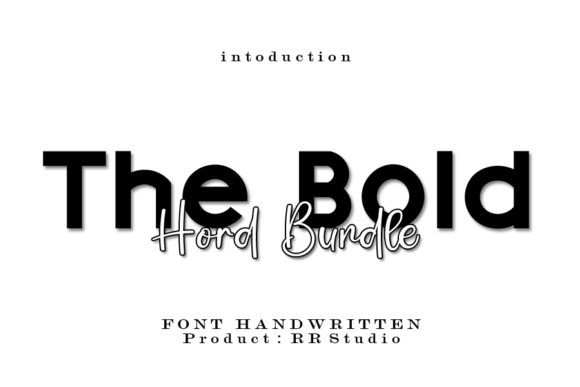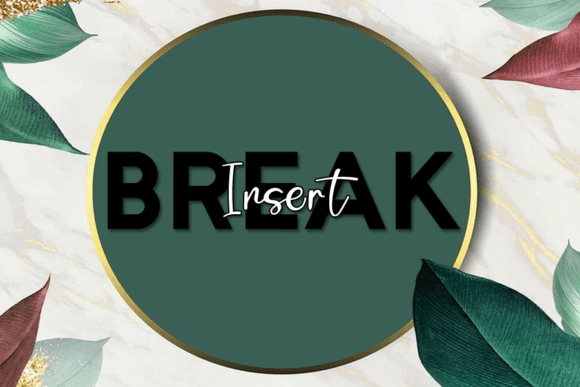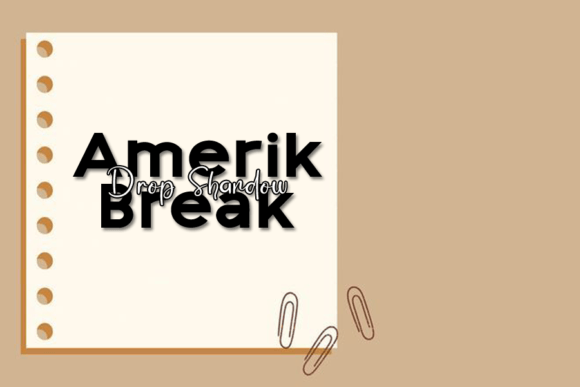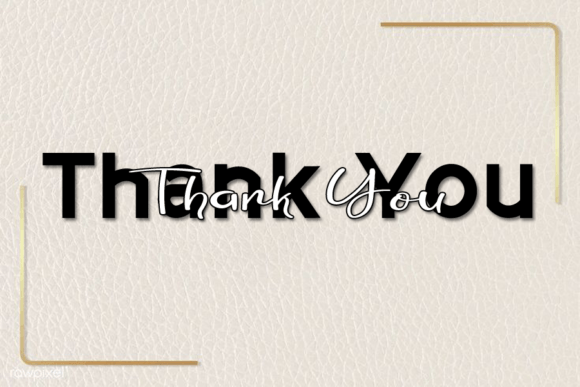
The Bold Font
About The Bold Font
The Bold is a classic and simple handwritten font. Its natural and casual vibe makes it incredibly versatile, so you can add it to a large variety of designs.